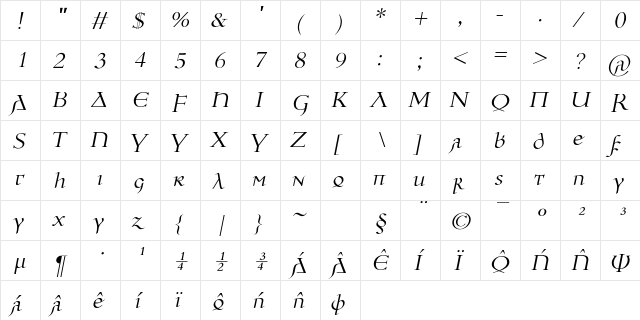
Ulfilas Kursiv
| Foundry | Robert Pfeffer, Hessen. |
| Designer | Robert Pfeffer, Hessen. |
Design Context for Ulfilas Typeface
Ulfilas offers clean, dependable letterforms without strong stylistic allegiance, making it a practical choice for designers who need flexibility. Its italic angle brings a sense of urgency and motion to the letterforms.
Pro Tip: Use Ulfilas for emphasis, pull quotes, and subheadings where its slanted energy can add rhythm to the layout.